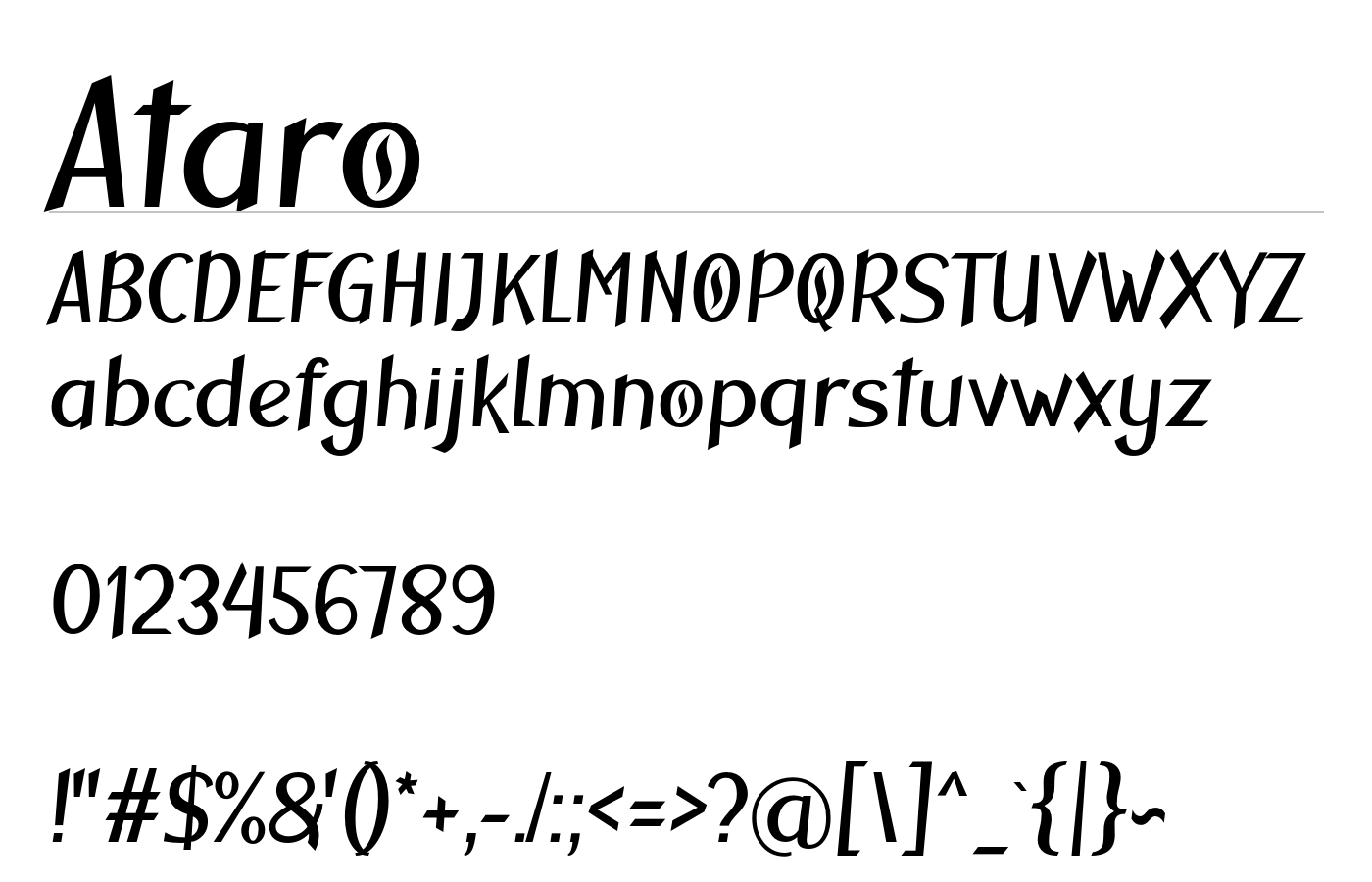
Ataro is a distinctive serif font with a modern twist, featuring sharp, angular strokes and a slight slant that gives it a dynamic, energetic feel. Its medium contrast and unique letter shapes, such as the stylized “o” and tapered serifs, create a bold yet elegant personality well suited for creative branding, editorial headlines, and stylish packaging where character and flair are desired. This font’s sophisticated yet playful vibe makes it ideal for projects needing a fresh, contemporary edge with a touch of artistic charm.
Ataro Font
About Ataro Font
| Font family | Ataro Font |
| Designer | Jasman Nazara; Situjuh Nazara |